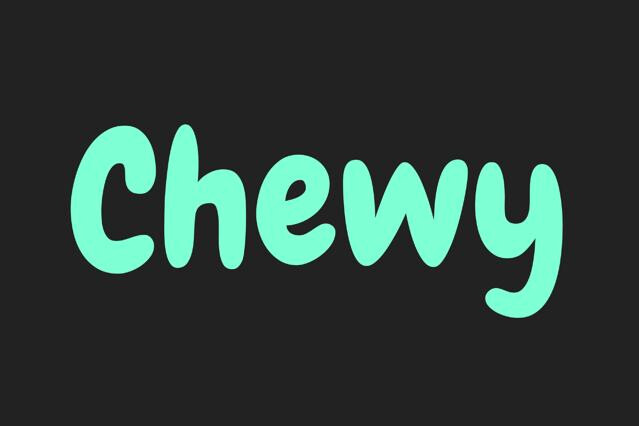
Kids Fonts
Our kids' fonts sound close to the floor. Inside the library are rounded, chubby faces; playful, bouncy kids' displays; cartoon families; scribble-and-doodle styles; one paper-cut face; 90s kids' TV type; and a few holiday one-offs.
Kids fonts, after the cartoon dog escaped
These are fonts drawn for children's products: rounded, simple, a little clumsy on purpose. The letterforms sit close to how kids themselves write, with big open shapes and nothing sharp, and that closeness is exactly why they are so friendly instead of designed. There's real craft hiding under the clumsiness, too. Children who are just learning to read need a single-story "a", the round one they're taught to write, and an "I" that can't be confused with an "l". A good kids font handles all of this while looking like it was drawn with a crayon in ninety seconds.
The most famous font in the genre appeared by accident. In 1994, Vincent Connare at Microsoft saw a beta of a children's program where a cartoon dog named Rover spoke in Times New Roman speech bubbles. He decided a dog can't talk like a newspaper, pulled the comic books off his shelf, Watchmen and The Dark Knight Returns, and drew a new font based on their hand lettering. Comic Sans missed the program's deadline, shipped with Windows 95 instead, and escaped into every office printer on the planet, which is how a font drawn for a cartoon character became the longest argument in design history.
The lesson in that story is the honest core of the whole genre: letters for children should look like a person made them. Kids don't trust polish yet. A slightly wobbly alphabet tells a small reader that this book, this game, this cereal box is on their side, and that little act of trust is what these fonts are for.
Kids fonts by the tool that drew them
- Crayon and scribble fonts: waxy, pressure-heavy strokes straight from the drawing on the fridge.
- Rounded chubby faces: soft inflated letterforms with nothing sharp anywhere, the plush toys of typography.
- Cartoon families: bouncy display types with animation energy, often shipping in several weights for whole packaging systems.
- School-style fonts: letterforms close to handwriting workbooks.
- Papercut and craft faces: look scissored from colored paper, the kindergarten wall in font form.
- 90s kids-TV display: loud, chunky faces with Saturday-morning energy, nostalgic for the parents doing the buying.
- Holiday and party fonts: Halloween wobbles and birthday balloons, drawn for the calendar's fun days.
Working with kids fonts
The first thing to understand about children's design is that you're always designing for two people at once. The kid sees the box; the parent reads the box and decides whether to buy it. So let the kids font do what it's for, the name, the big friendly word on the front, and keep everything the adult needs, ingredients, age range, instructions, in something calm and legible.
Second: be generous with size and space, more generous than you'd normally be. A six-year-old doesn't scan words the way you do; they decode letter by letter, and letters that overlap, crowd, or bounce too hard genuinely slow them down. So when the text is meant for the child, a storybook line, a game instruction, give it room: bigger type, looser lines, fewer words.
And a word about color. Kids design already runs saturated: bright backgrounds, busy illustration, characters everywhere. The working rule is that the font brings the playfulness and the color brings the contrast, one job each. A chunky kids font in plain cream on a loud background will beat the rainbow-filled version every single time, and the design will feel calmer to the people looking at it, small and large.
Projects that call for a kids font
- Children's book covers and interior headings.
- Toy and game packaging.
- Snack and cereal branding.
- Educational apps, worksheets, and classroom materials.
- Birthday invitations, party graphics, and holiday cards.
- Pediatric clinics, daycares, and family services that need to feel unscary.
- Animation titles and kids' channel branding.
Audience. Kids fonts are drawn for products aimed at children: rounded shapes, open counters, letterforms close to how children learn to read and write. The mischief is calibrated for a reader who is seven and still negotiating with the alphabet.
The better ones, yes, but check the letterforms first. A single-story "a" and an unambiguous "I/l" distinction matter for early readers. A font that decorates letters beyond recognition is playful for the parent and useless for the child.
When the type starts fighting the illustration. Kids products are already saturated with color and character; the font can afford to be the calm one. One expressive display face plus a simple reading face covers most projects.
Anything that borrows childhood as a tone: casual food brands, party graphics, apps that want to feel harmless. The borrowed innocence works until the subject turns serious, at which point the font starts undermining the message.
Language support if you're producing for multiple markets, and the character set generally. Some hand-drawn kids fonts ship as caps-only or with a minimal set of punctuation, which surfaces late and painfully in layout.